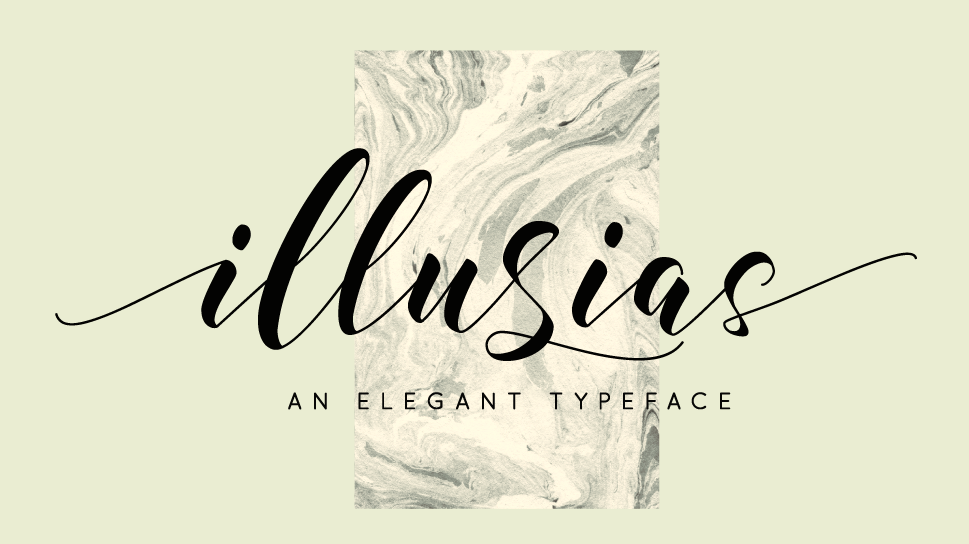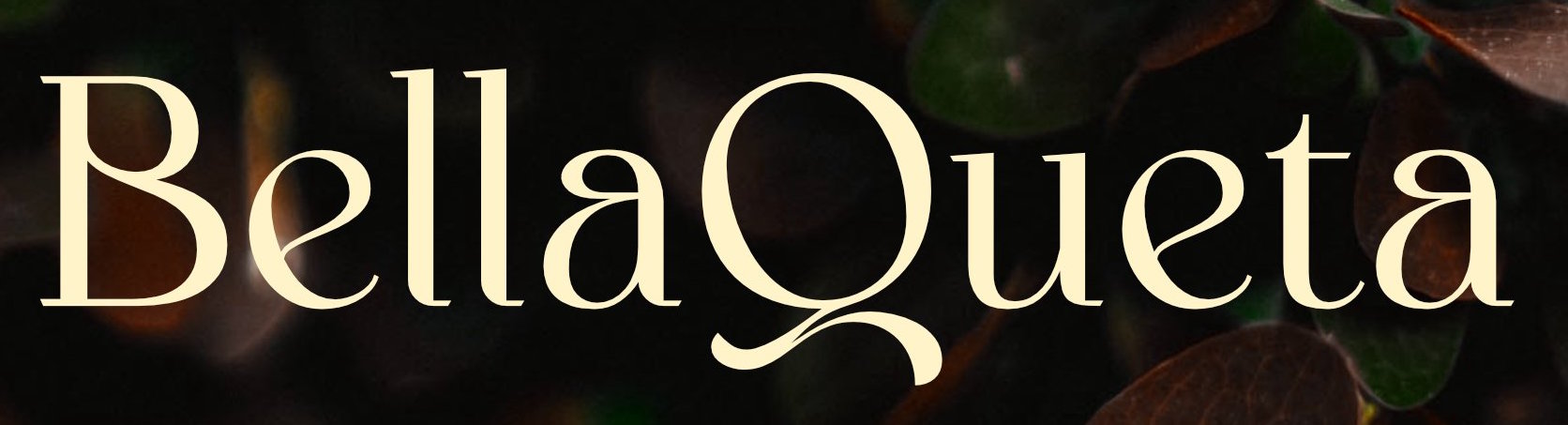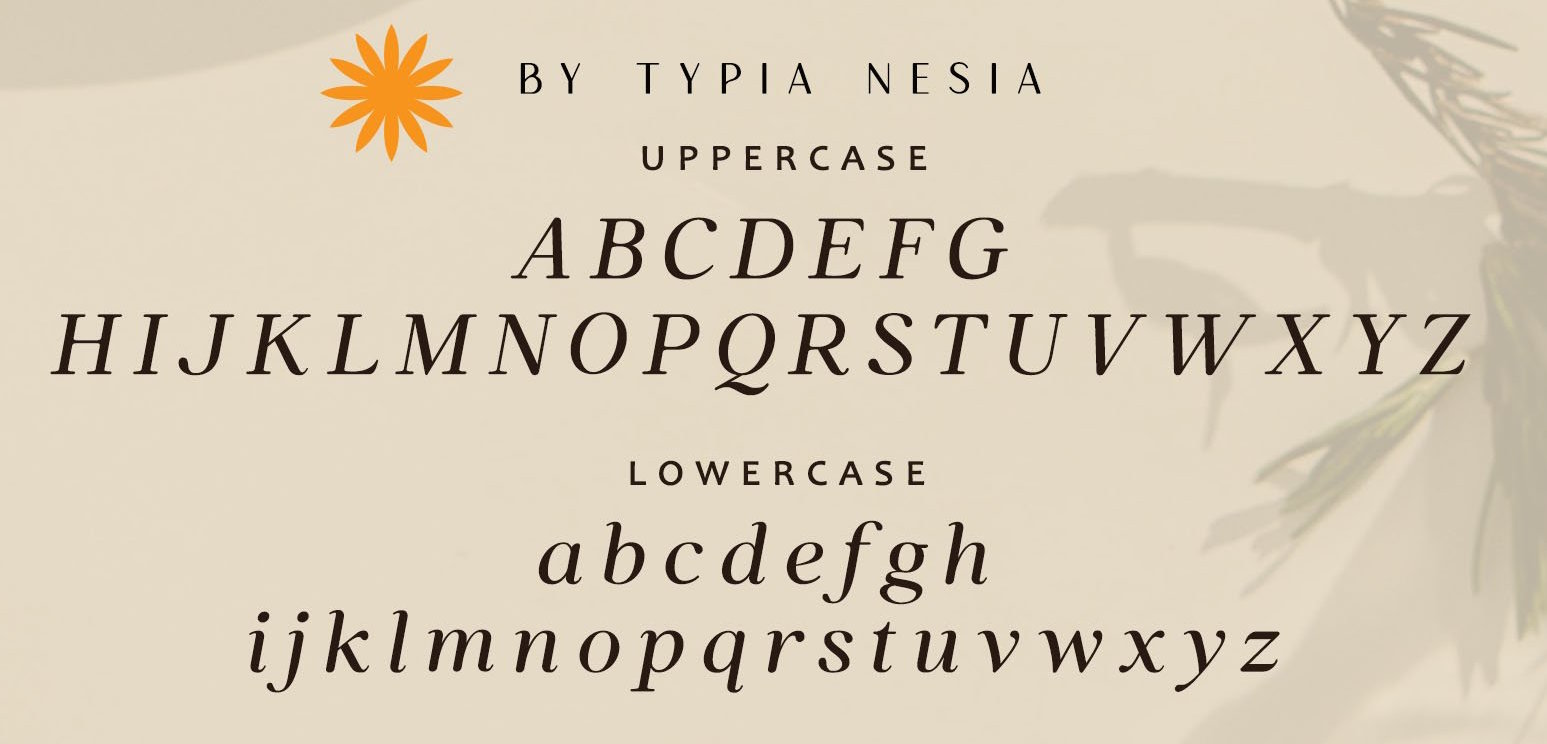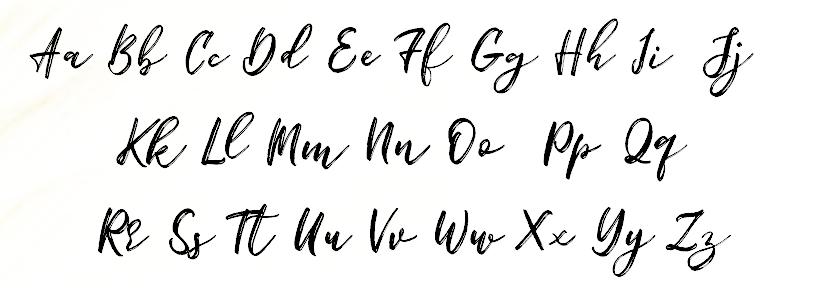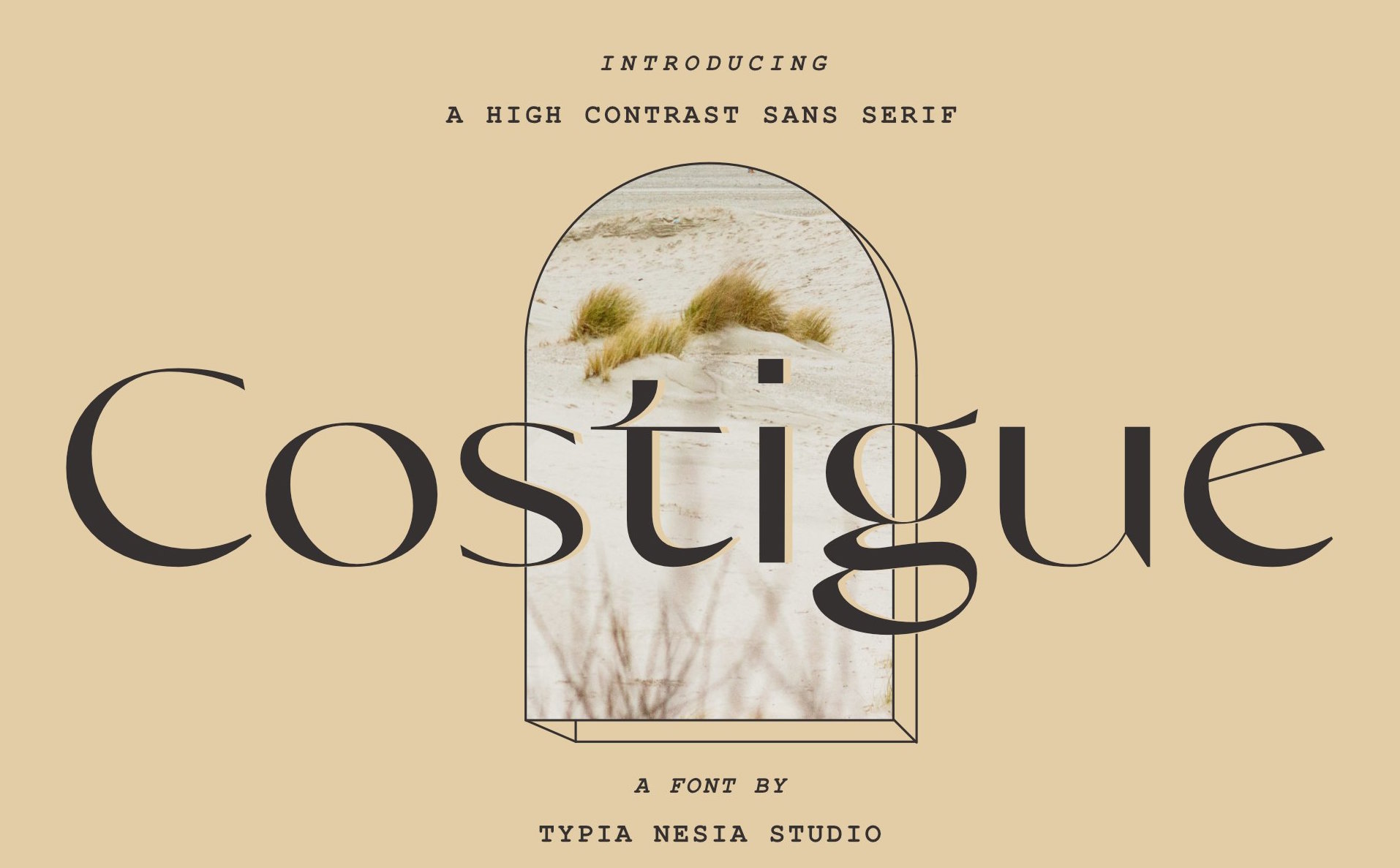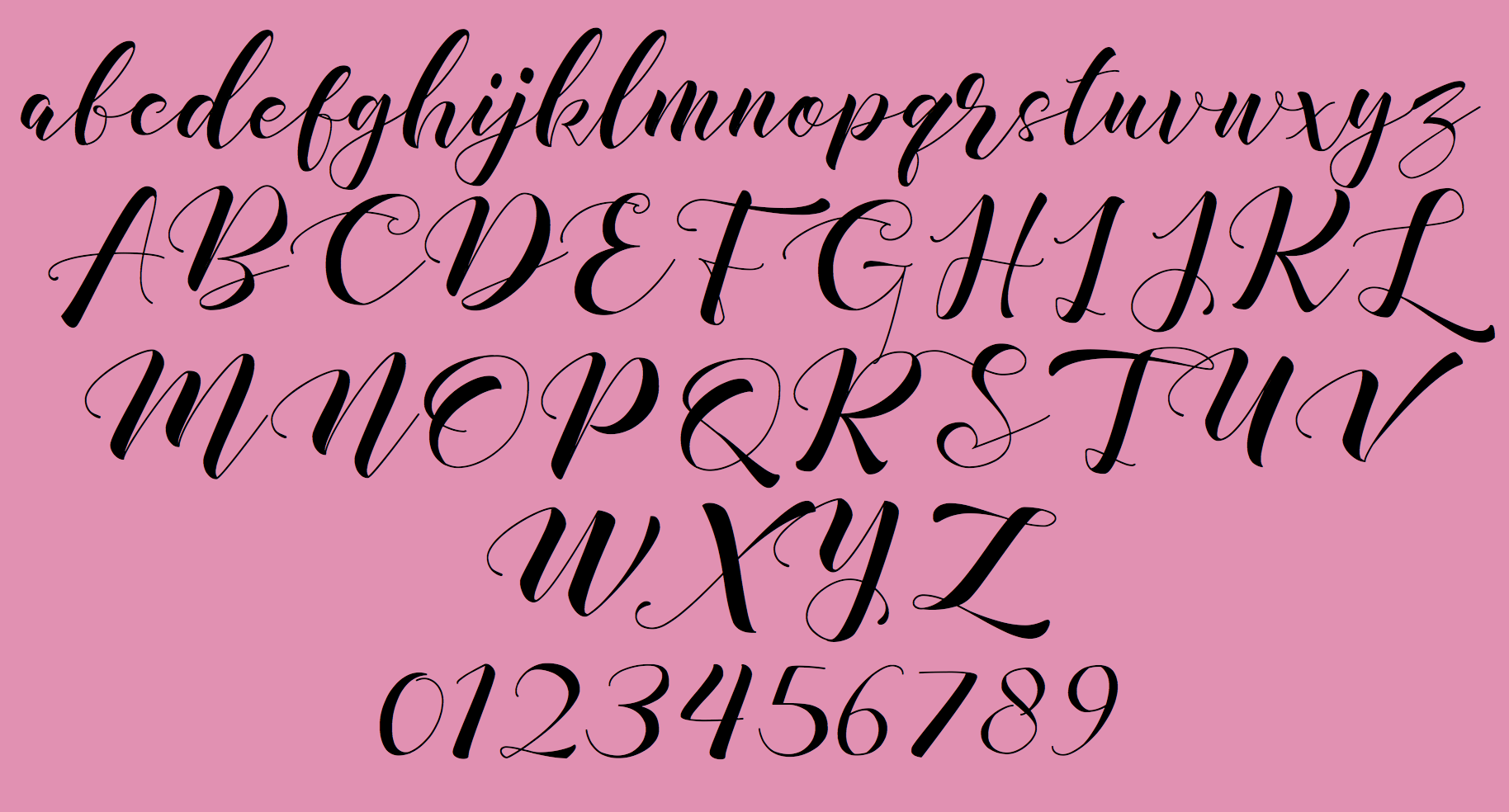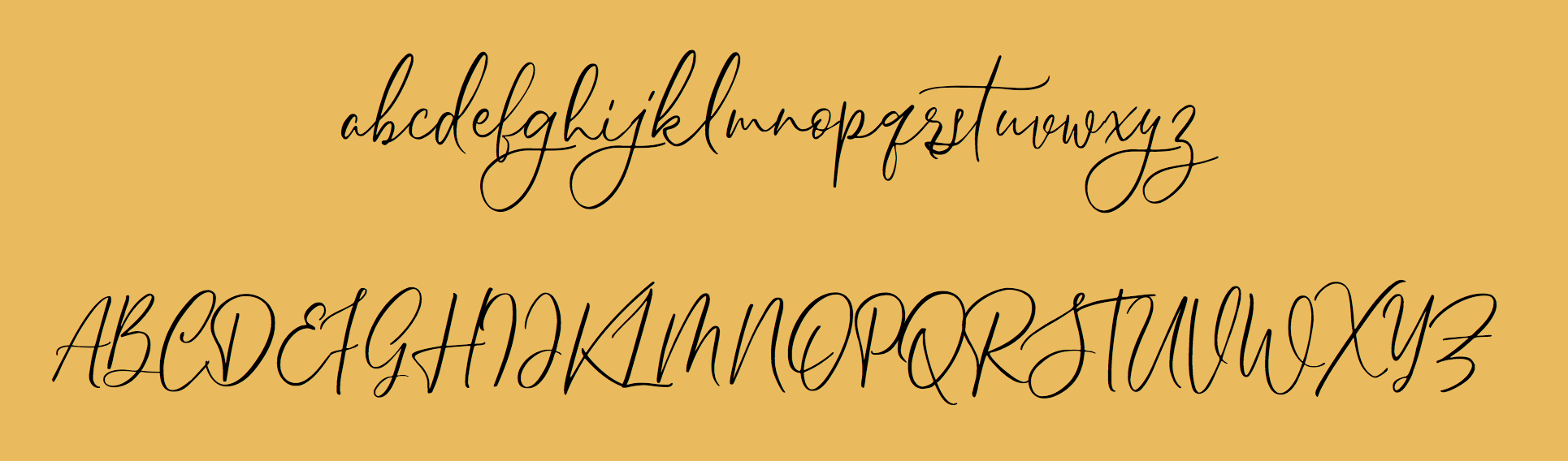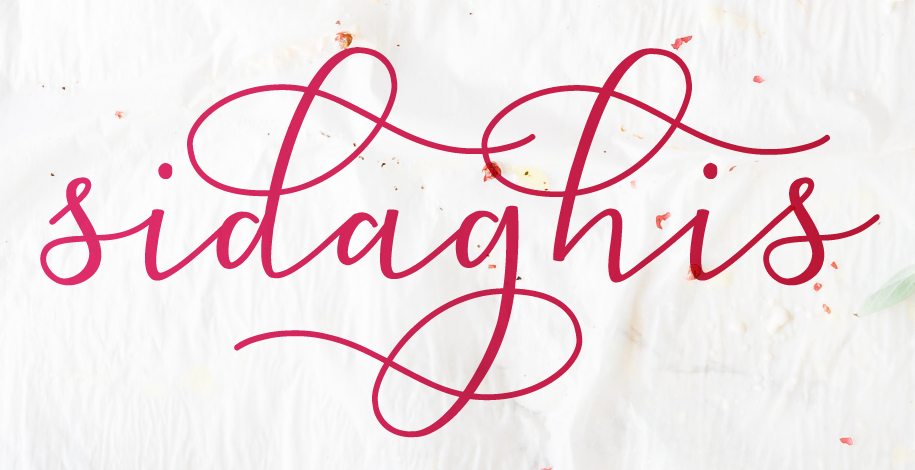
Typia Nesia [Arief Setyo Wahyudi]
Aka Fitriyawan Runsell, Arief Setyo Wahyudi founded Typia Nesia in 2016. Malang, Indonesia-based designer of the brush signage script typefaces Marjei Display (2016), Riverhack (2016), Bhatoshine (2016), Bellatiez (2016, dry brush), Sinisuka (2016), Hello Lary (sic) (2016), Hilary Room (2016, renamed later to Hello Lary?) and SokaQola (2016).
Other typefaces from 2016 include Glorynight (octagonal), Maqin Larisa, the calligraphic script fonts Rinstonia (almost like handwriting), Glorydays and Illusias, Revalina (grungy), and the vintage typefaces Asbak Display and Stangbunder.
Typefaces from 2017: Little Ballerina, Authentic Monoline, Betarisa, Elsagars, Glorydays, Queenland, Pinarak (brush), Bigbroade, Quashar, Hamline (a monoline signature script), Zailayard, Sidaghis, Illusias (calligraphic), Aziya, Shelafisa, Selesia Heart, Moolrys, Glorynight, Whimsy, Rhaikane (monoline script), Dabrush (dry brush), Sheilazain (a free calligraphic script), Magehand (signage script), Meshitara (connected script), Autorich Sans, Aurellia (textured script font), The Historia (brush script), Quashar (grungy), Kaiya Land (dry brush font), Biolatesha (connected script).
Typefaces from 2018: Historea (dry brush), Quashar, Houstander Allcaps, The Historia (heavy brush style), Sandbrush (a dry brush script), The Real Magazine (brush style), Single Brand, Lazy Quotes, Indie Fest, Alisheader, Houstander, Herdrey (calligraphic), Beshiny, Fantica, Riotiks, Outerlord, Antique.
Typefaces from 2019: Aesthetic White, Aurellia Vintage, AvailaBrush, Jokelaws, KaiyaLand Brush, Mark the Date, Meshitara Elegant, Riverhack Brush, Runtoys (a children's book font), Sinisuka Logo, Availa Brush (free), Dream Beach (script).
Typefaces from 2020: Advander Display Serif, Amaryllis Sans, Athetic Bold Script, Avaboca (a black condensed sans), Cageworld, Campfire (slab serif), Castand, Costigue (a hipster typeface), Crush Tease, Deltory (a stencil slab serif), Distropica, Great Dome Allcaps, Loemintoe, Luxury Quality, Magnetico Italic Sans, Maquire, Math & Risk, Nicolatte (a monospaced slab serif), Noiseware, Portway Stencil Serif, Qualivite Serif, Quartage Serif, Slabien Slab Serif, Sunnyside Rough Sans, TN Rosemary, Tarquile, Vanelope, Zoonaji, Athetic.
Typefaces from 2021: Castilon (a warm display serif), Angle Coast (an expressive hipster serif), Archane, Astrovans Retro, Baby Sunday, Beachy Italic, Bella Queta serif, Birds&Home, Blisstwin, Chaostic, Codeca One, Faltige Slab Serif, Fast and Cure Serif, Ghapter Sans (a hipster typeface), Gilsock Sans, Glamode, Gold and Queen, Grand Matilda, Greatwoods, Gunstand, Helena Bloom, Jazzbury, Kingdom (a garalde), Knock Out (a sports font), Lumaneon, Luxury Quality Script, Magehand Logo Font, Mighty Wings, Milk and Wild, Mutone, Neomarket, Palmour, Pottery Gifts Sans, Quatera (a 10-style serif), Quatest Thin Italic, Quickwar Display Sans, Quitewave, Quite Word, Quotesa Sans (a thin stylish sans), Rosemode (a serif typeface based on Trajan), Roystorie, Scripter (a typewriter font), Shigatsu Italic Serif, Sporadic (a bold sports sans), Squiver (techno), TN Rosemary Font Duo, Vaulto (a wide bold sans), Westbake Sans, Wondermind.